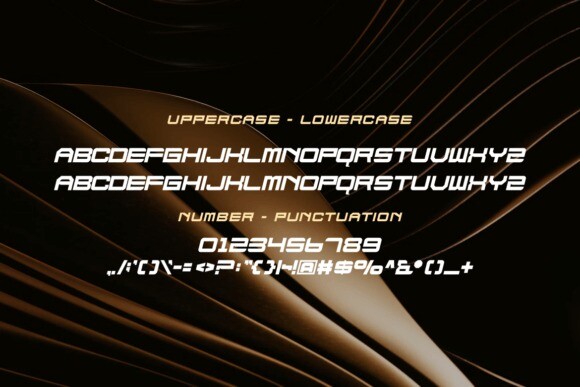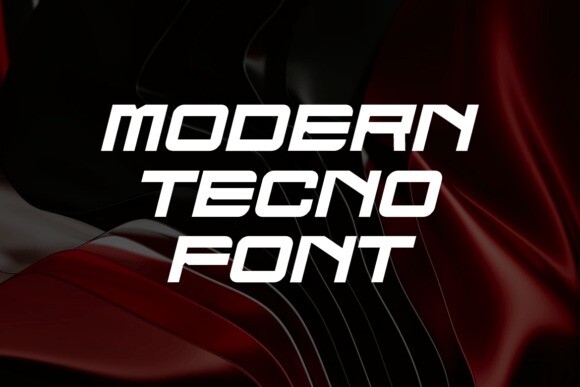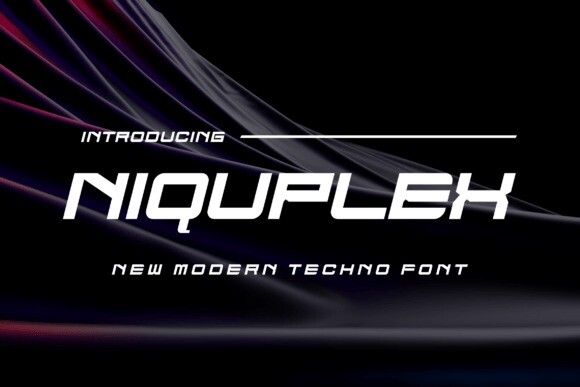
Niquplex Font
Designer: Supriyatin
Niquplex Font – Modern Font is a bold and authentic display font. This font is perfect for any branding project such as logos, t-shirt printing, creative products, and more. extraordinary in a variety of contexts